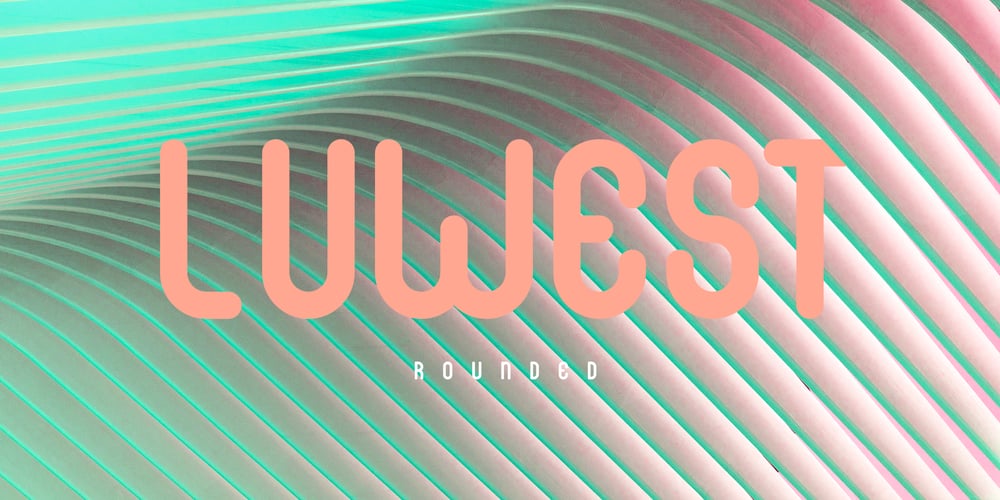
Luwest Rounded Font Family was designed by Elyas Beria and published by Elyas Beria. Luwest Rounded contains 4 styles and family package options. Soft, fun, confident, sophisticated, and versatile.Luwest Rounded is a modern rounded font family that comes in two weights and in italics. The chunky weight and buttery curves of Luwest Rounded Regular make it well suited as display type ideal for branding, logos, magazines, films, packaging, greeting cards, invitations, posters, slides, and presentations. Luwest Rounded Light adds contrast and even more flexibility. Luwest Rounded includes a generous selection of international characters to support a broad range of languages.Luwest Rounded includes: Caps and lowercase Regular and Light weights Regular and Italics Extensive international character support